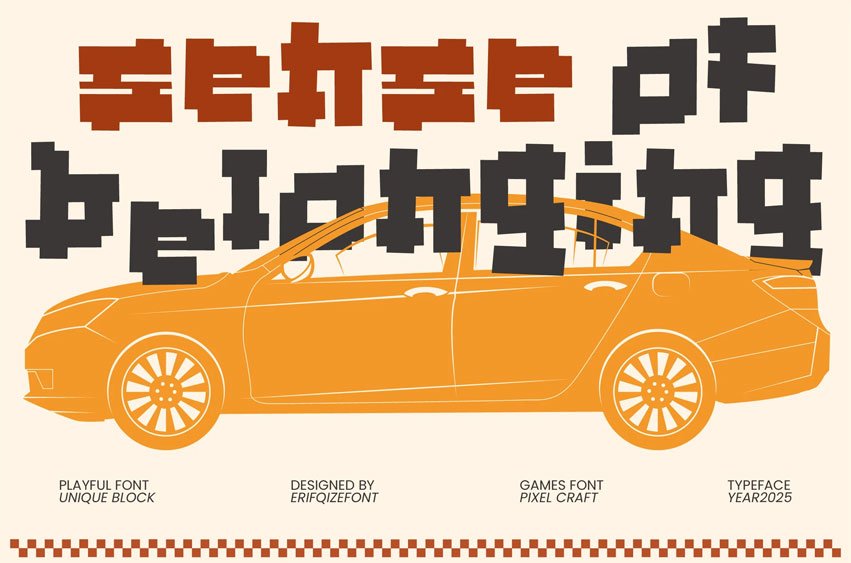
Sense Of Belonging Font
Sense Of Belonging Font is a display typeface inspired by pixel craft and block-style design, blending retro gaming aesthetics with a playful, experimental touch. Each character is built with a bold and boxy structure, delivering a unique, fun, and creative personality that stands out in any project.
This font comes with two distinct styles: Regular and Shadow, allowing you to mix and layer them for dynamic visual effects. It’s perfect for game titles, creative posters, digital art, logos, retro covers, and nostalgic design projects.
With its strong geometric rhythm and playful block forms, Sense Of Belonging brings a mix of fun, boldness, and originality. The font also includes multilingual support and a full set of symbols and punctuation, making it ready for versatile modern design use.